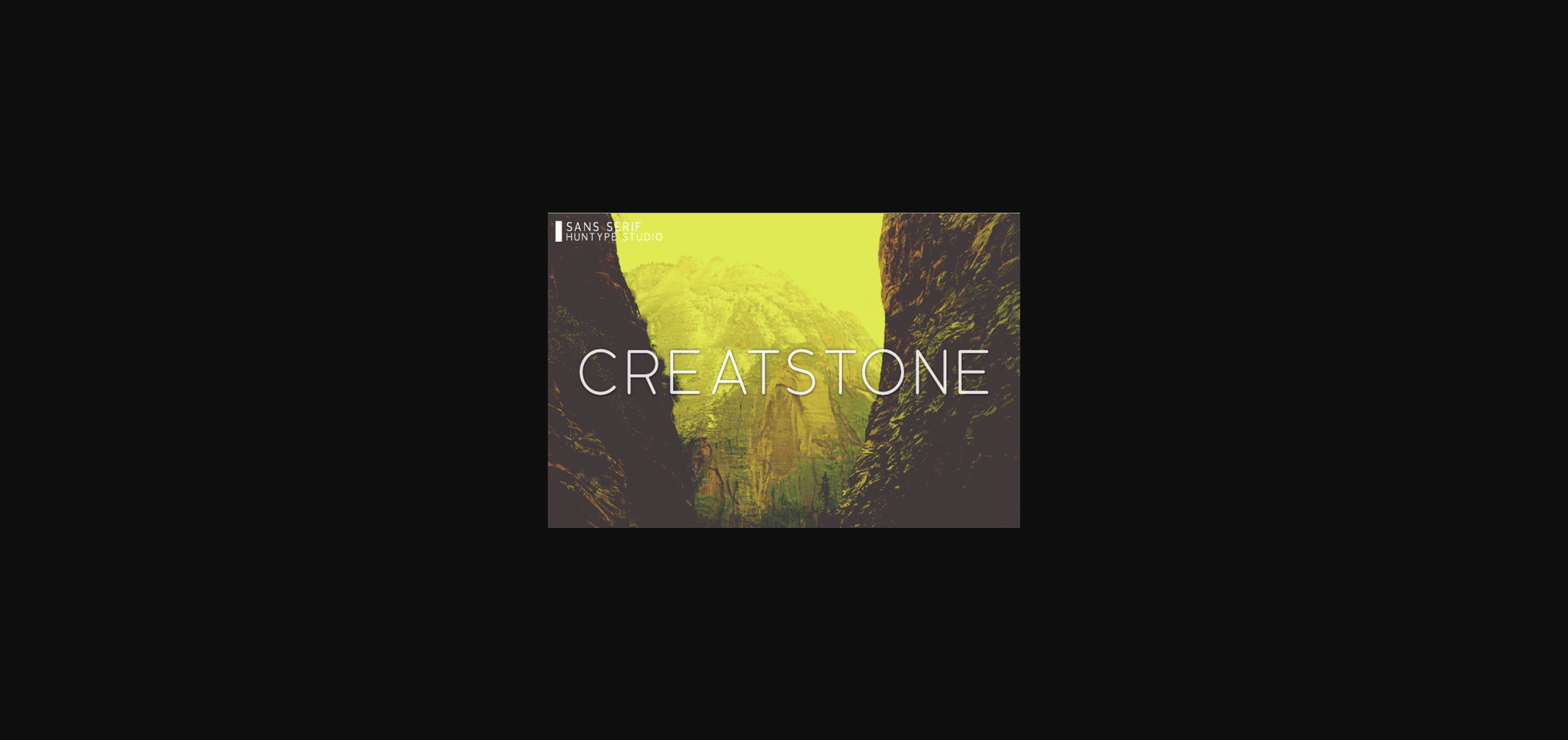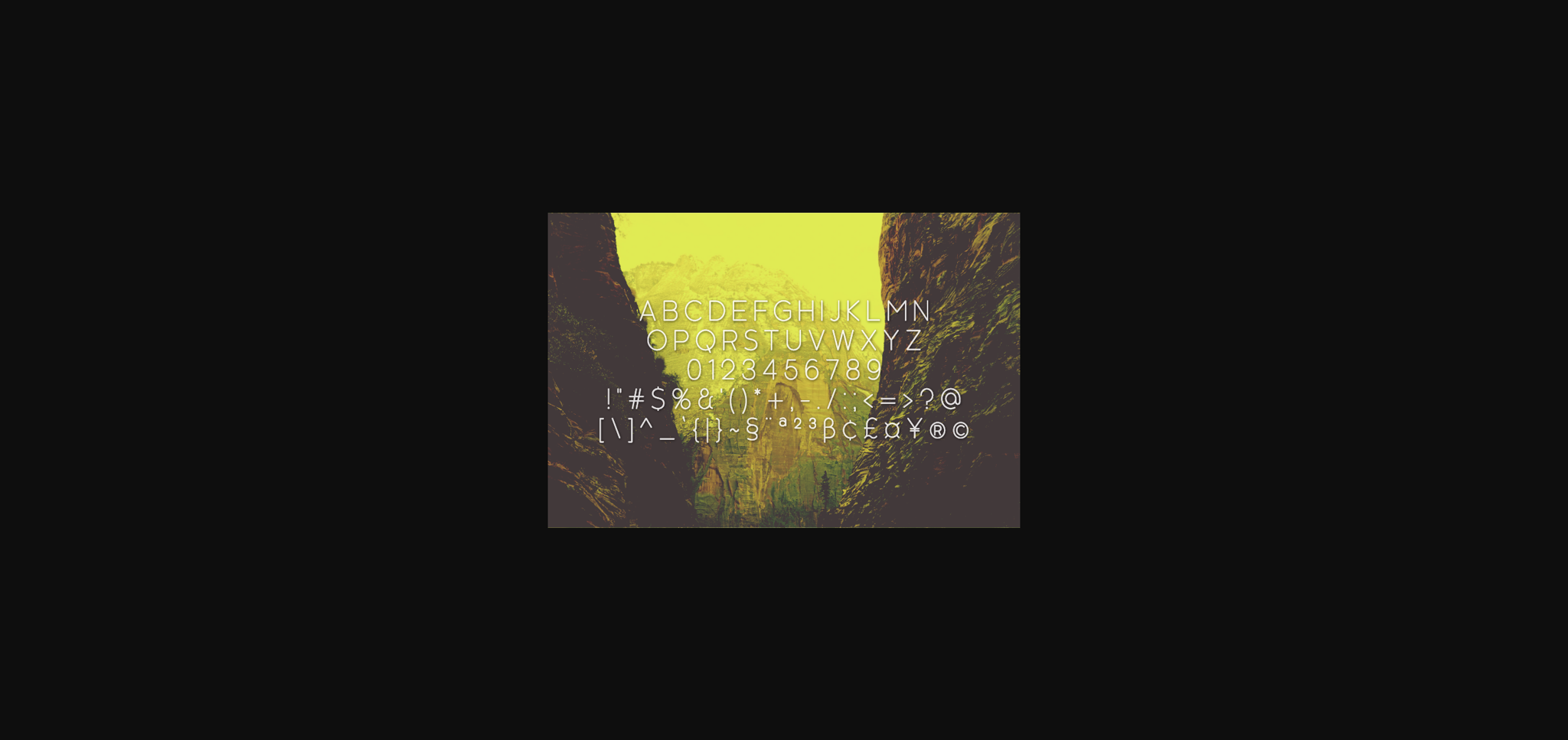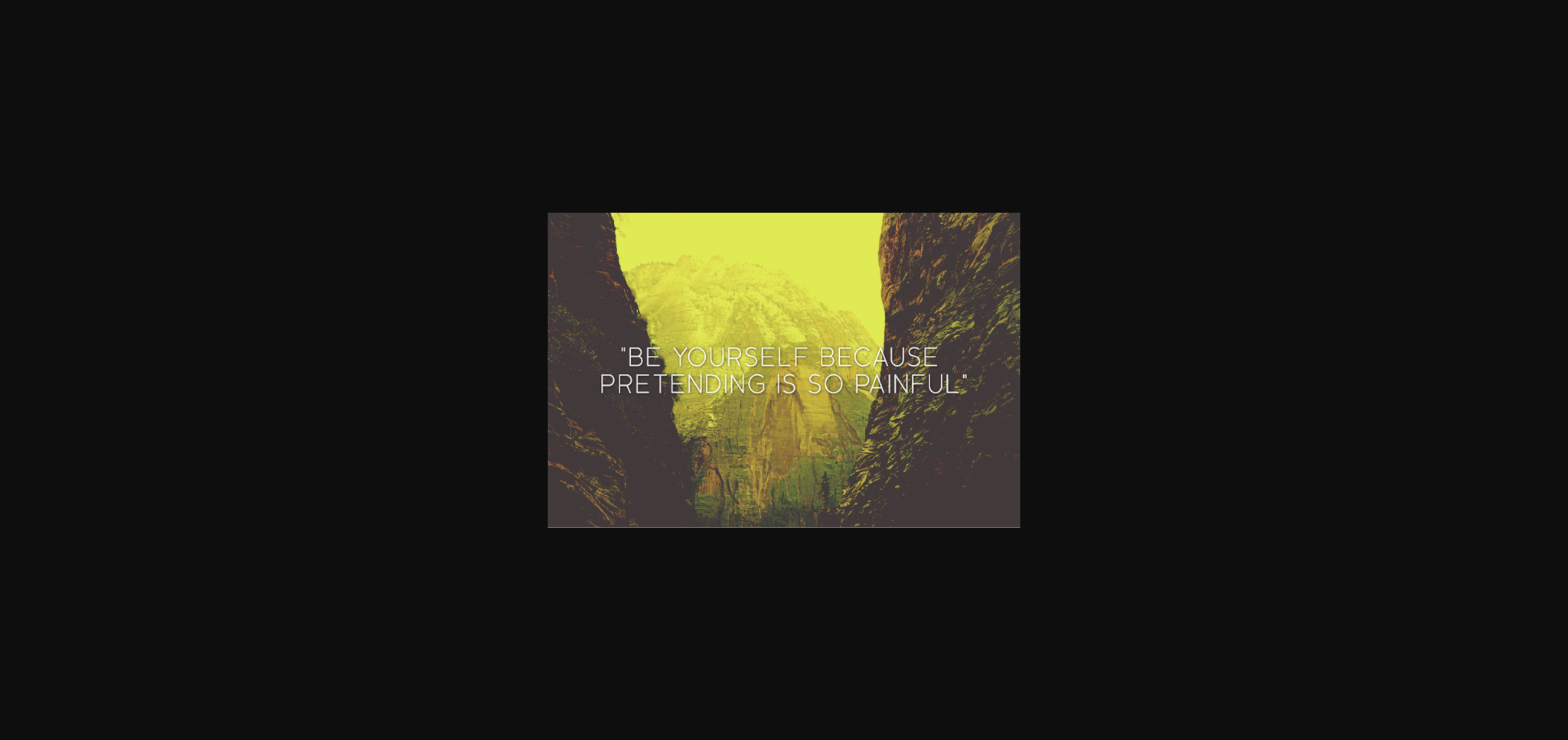
Creatstone Font
About Creatstone Font
Creatstone is a modern and clean sans serif font that is versatile and looks great in just about any context. With smooth and clean lines, and just a touch of contrast, Creatstone works beautifully for logos, branding, web headings and much more.